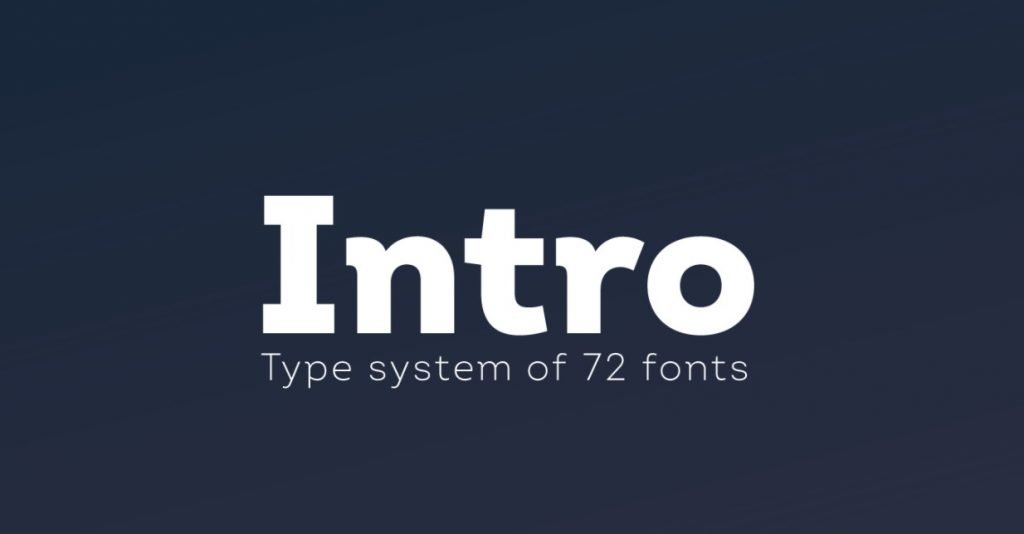
We are excited to introduce you to another sans-serif typeface called Intro Font. Created by Svet Simov, this typeface can be downloaded for free from Google Fonts.
When this typeface used with oswald font it can easily express geometric makeup and structure. The basic styling of this typeface Alphabets like “A”, “O” and “H” is also built on the basic principles of geometric forms, circles, and squares.
Name | Intro Font |
Style | Sans-Serif |
Designer | Svet Simov |
- Books
- Newspapers
- Newsletters
- Directories
- Websites
- Apps
- Video games
- Banners
- GIFs
What Type of Font Is Intro font?
The intro is one of the best sans serif font that is designed and presented by Svet Simov. It's one of the most liked fonts on the web.
What's the Closest Font to Intro Font?
The Muller Font is very close to the Intro font.